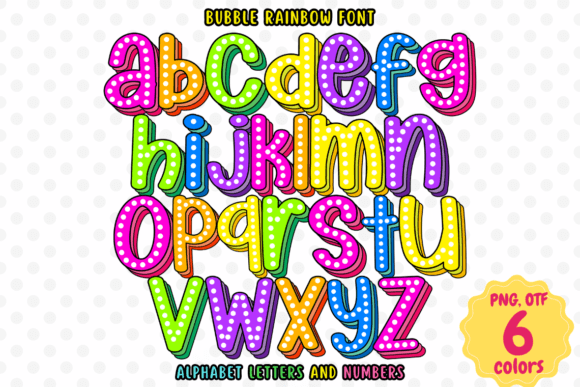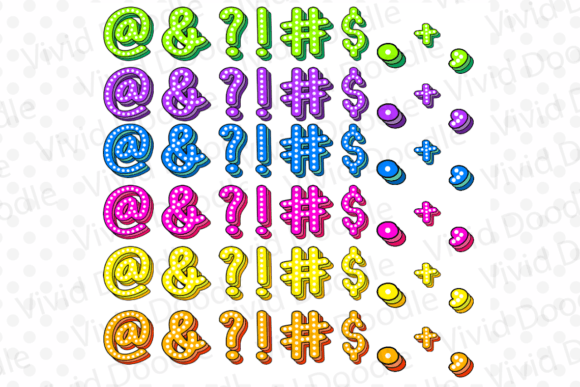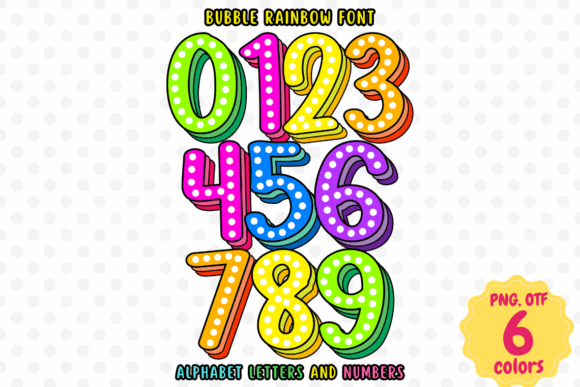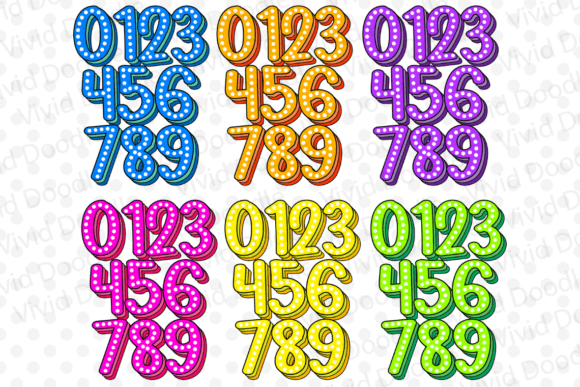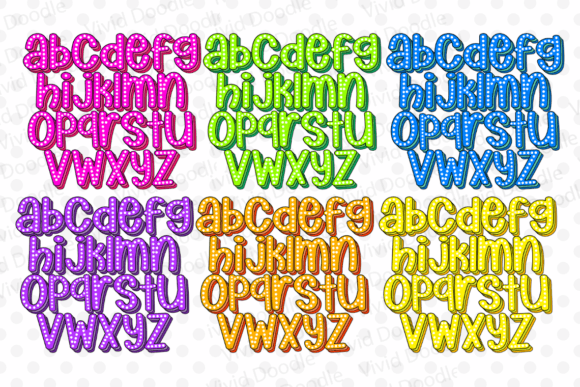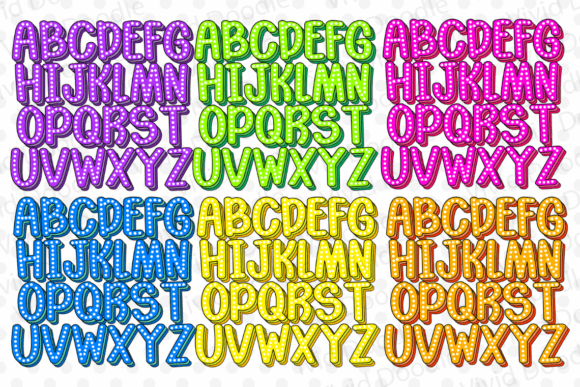
Elevate Your Designs with a Dose of Whimsy
Have you ever stared at a blank page, searching for that perfect spark to ignite your creativity? For designers, finding the right font can be the game-changer that takes a project from meh to mesmerizing. And that’s exactly what the “Bubble Rainbow Font” is designed to do – add a touch of fun and playfulness to your work.
This delightful typeface features bubble letters infused with the colors of the rainbow, making it perfect for children’s books, party invitations, posters, and greeting cards. The “Bubble Rainbow Font” brings a burst of color and joy to any project, making it a valuable addition to any designer’s toolkit. Whether you’re looking to add a whimsical touch to a children’s book or create eye-catching party invitations, this font is sure to make your designs stand out.
Bubble Rainbow Font Key Features
- Font Family: Bubble Rainbow Font is a unique, hand-drawn font family that features a playful, whimsical design.
- Character Set: The font family includes a comprehensive character set, covering Latin, Cyrillic, and Greek alphabets, as well as punctuation and special characters.
- Unique Characteristics: The Bubble Rainbow Font features a distinctive, bubbly design with varying line widths, giving it a playful and eye-catching appearance.
Bubble Rainbow Font Review
I recently had the chance to play around with the Bubble Rainbow Font, and I must say it’s quite a unique and eye-catching choice. ✨ The bubbly, rainbow-colored design gives it a playful and whimsical feel that’s perfect for children’s books, greeting cards, or other fun projects.
- ✨ Highly customizable: The font allows for a wide range of color options and size adjustments, making it easy to tailor it to your specific project needs.
- ✨ Versatile: The font can be used for both digital and print projects, making it a great choice for a variety of applications.
- ✨ Fun and engaging: The bubbly design is sure to grab attention and add a touch of personality to your project.
- ⚠️ Limited legibility: In some cases, the font can be difficult to read, especially at smaller sizes or in situations where the background is complex.
- ⚠️ Not suitable for formal projects: While the font is perfect for fun projects, it may not be the best choice for more formal or professional applications.
Overall, I think the Bubble Rainbow Font is a great choice for projects that need a playful and eye-catching touch. Just be mindful of the limitations and use it wisely!
The Bubble Rainbow Font is perfect for:
- Creating eye-catching social media posts.
- Designing playful and whimsical illustrations.
- Adding a touch of fun and personality to presentations.
Remember to experiment with different font sizes, colors, and effects to get the most out of the Bubble Rainbow Font.
Can I customize the Bubble Rainbow Font to fit my design needs?
Yes, the Bubble Rainbow Font is fully customizable, allowing you to adjust its size, color, and style to fit your design needs. You can also use font editors to modify the font’s design and create custom variations. Additionally, the font’s OpenType features allow for advanced typography options, such as ligatures and swashes, to add an extra touch of personality to your designs.